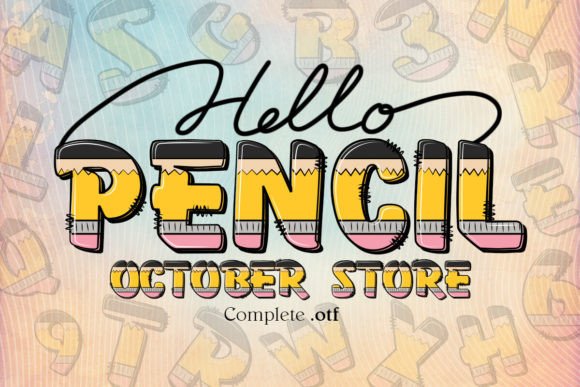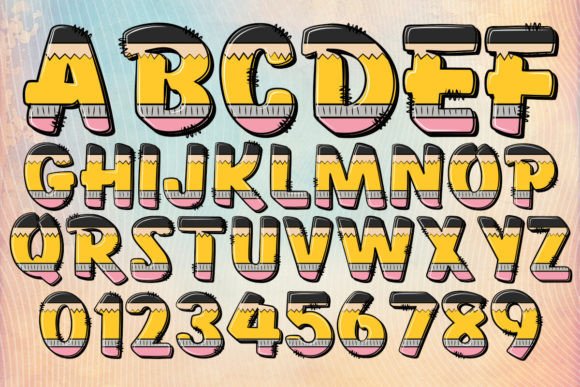
Hello Pencil Font
Introducing the timeless Hello Pencil Font – the perfect symbol of school bird chirping, a glance at a shared student-teacher journey, and the thrill of the first day of school. A meeting point between nostalgia and stylish typography, it’s an ideal choice for those yearning to bring back their classroom memories with an innovative twist. Each character in the unique Hello Pencil font is reminiscent of a precious memory from the hallowed halls of education.